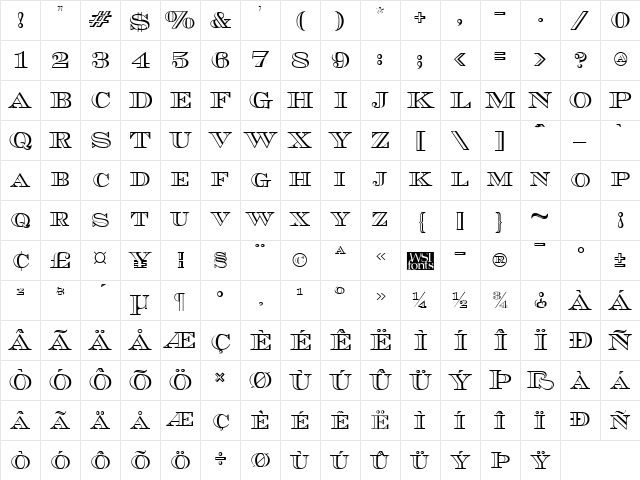
CurrencyOutline normal
Design Context for CurrencyOutline
CurrencyOutline is built around its visual character rather than neutral utility - its distinctive forms are designed to make an impression at display sizes.
Font Pairing: Pair with a clean neutral sans-serif for body copy to let CurrencyOutline's character lead without overwhelming the composition.
Pro Tip: Use CurrencyOutline exclusively at display sizes - it was designed to be seen, not read at length. Let a neutral companion handle body copy.